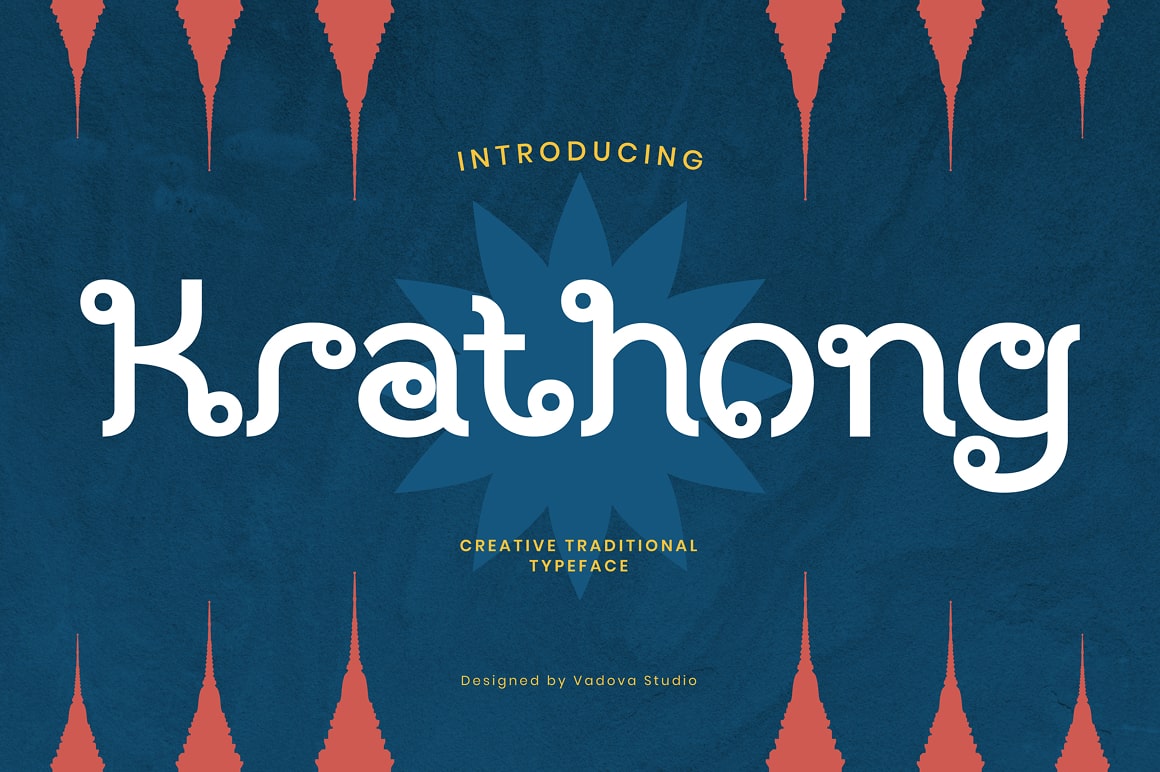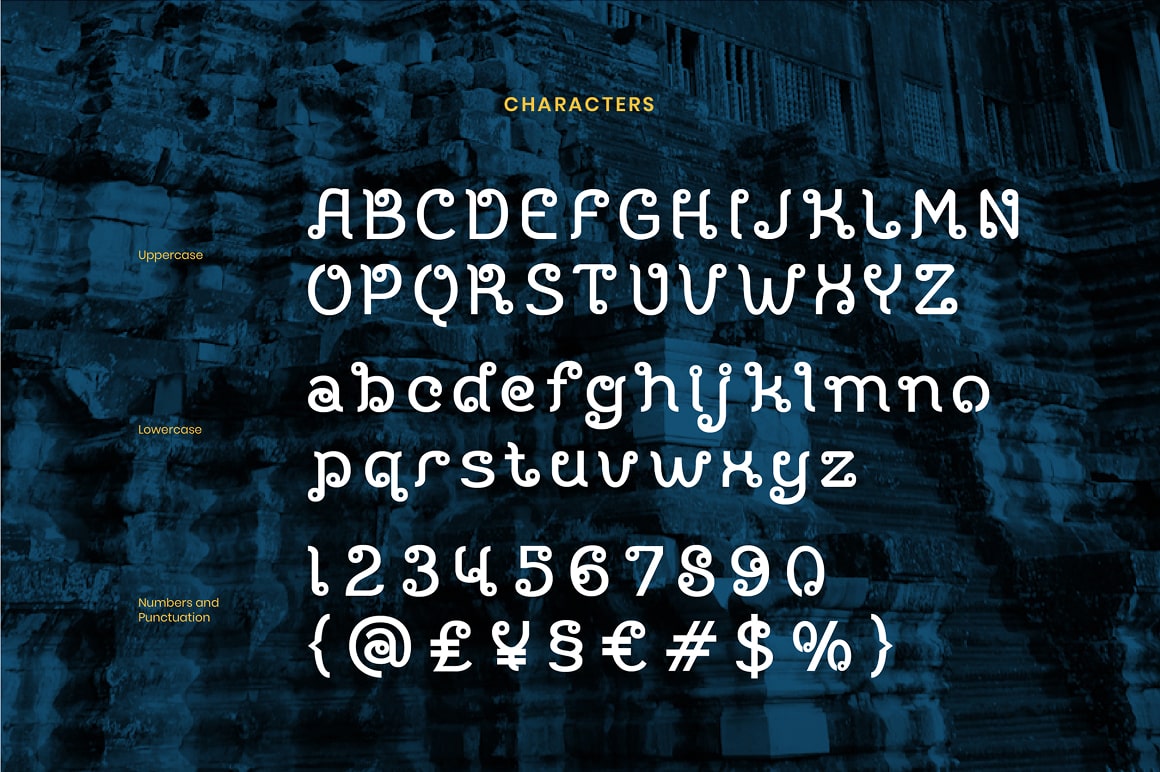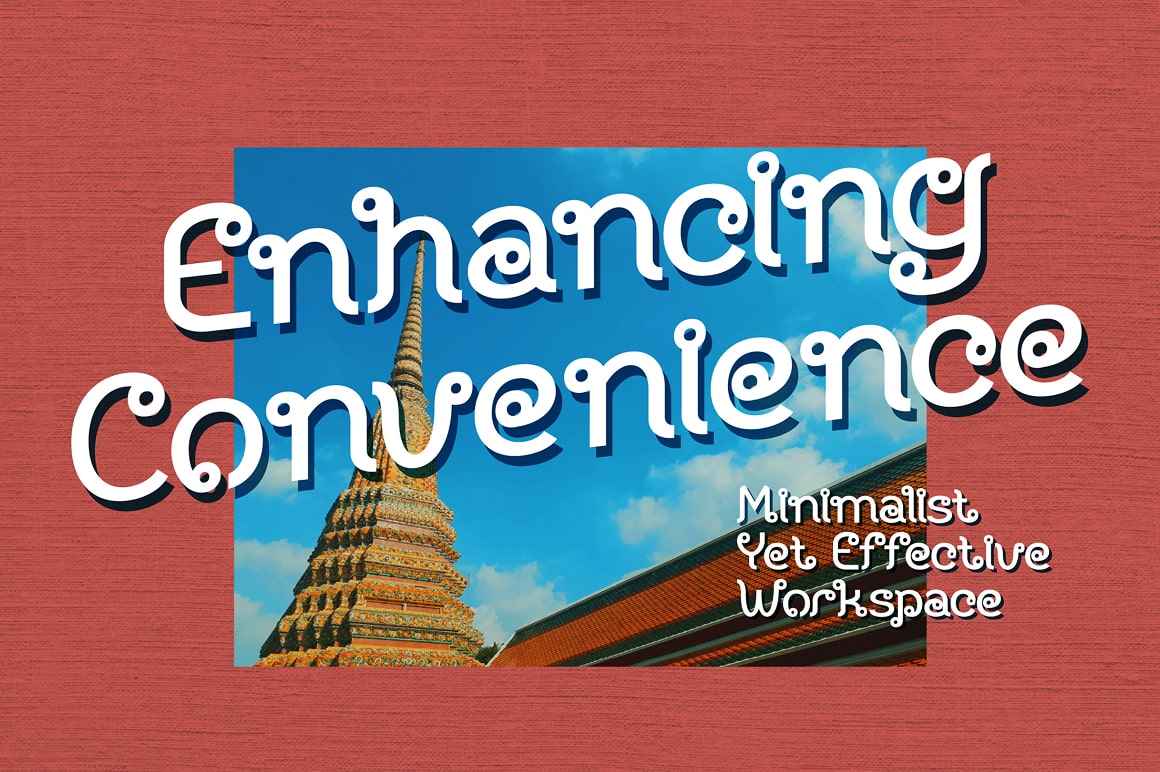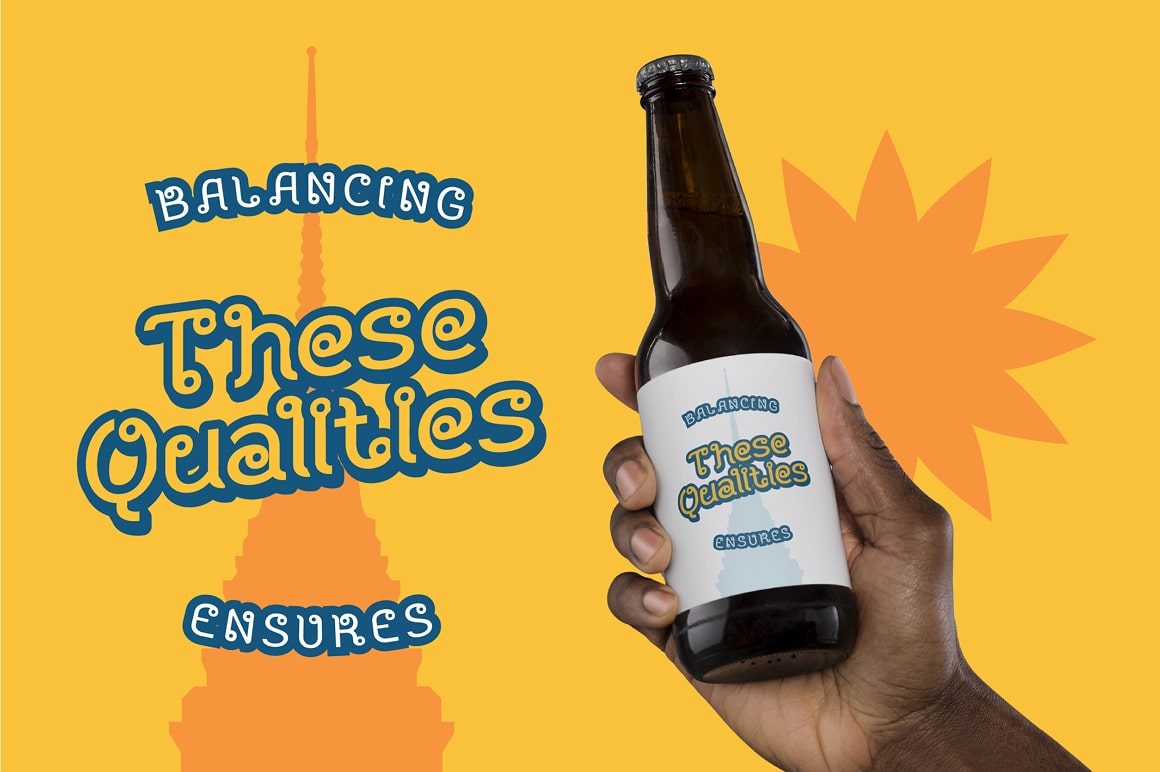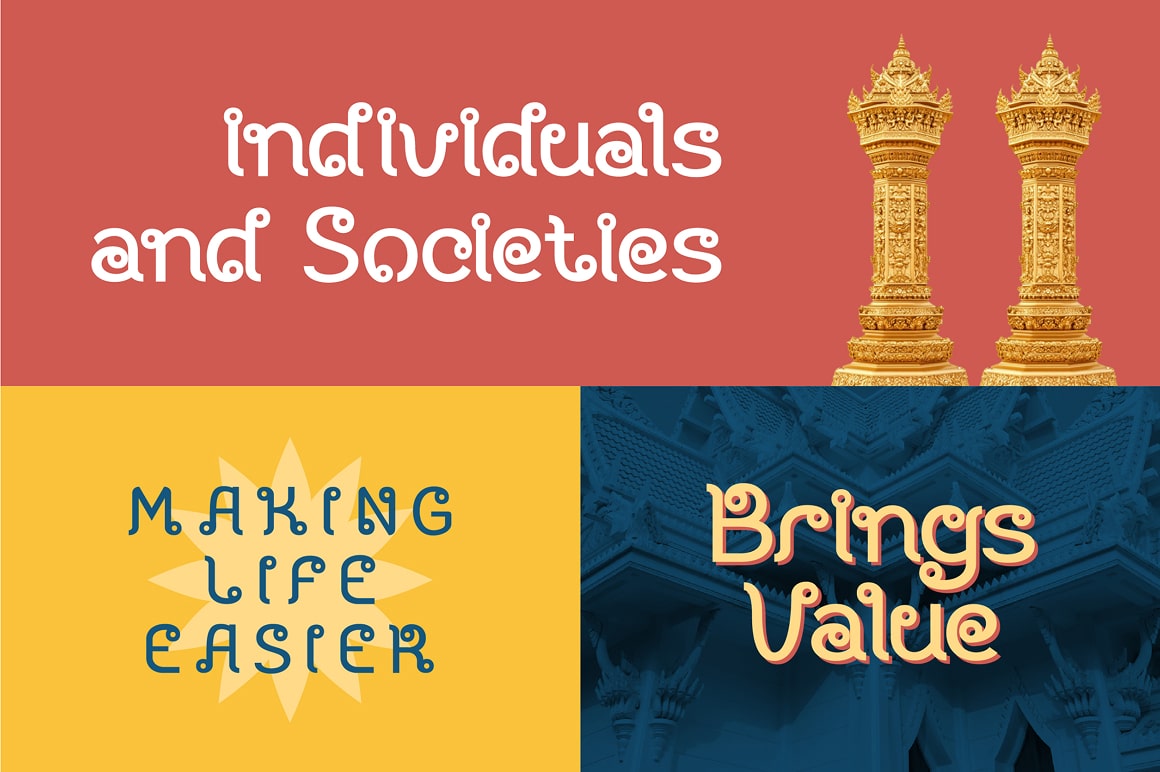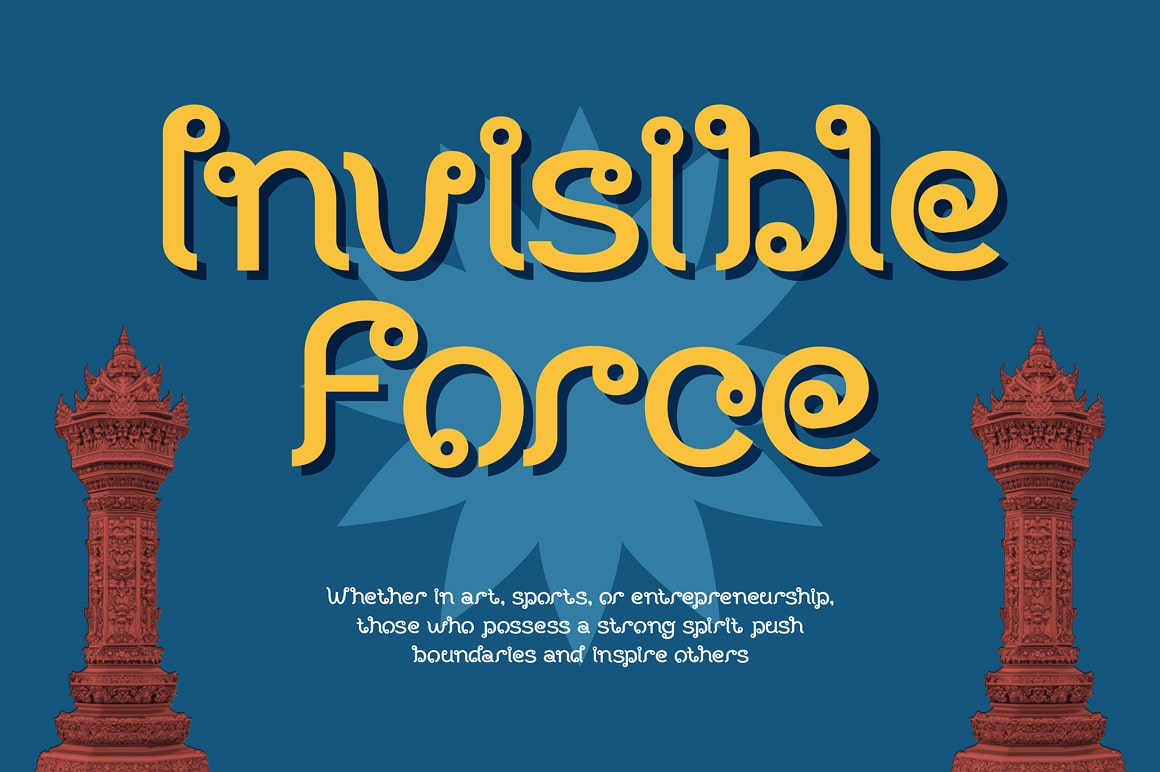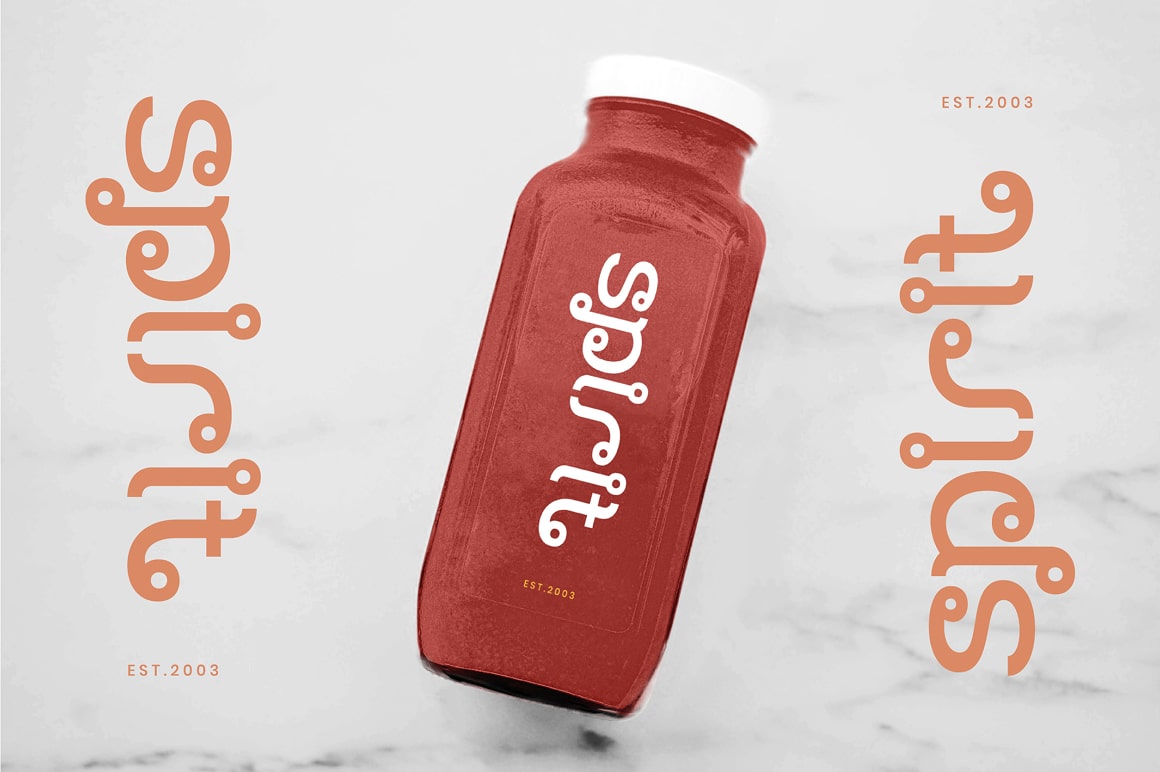
Krathong Creative Traditional Font
Elevate your designs with Krathong Creative Traditional Font, a creative traditional typeface inspired by Southeast Asian cultural motifs, decorative patterns, and festive lettering. Its unique curves, ornamental swirls, and elegant structure make it perfect for event posters, branding, packaging, and projects that embrace heritage and artistic expression. The font balances tradition with modernity, adding a touch of sophistication and charm to any design. With its intricate yet readable style, Krathong brings a sense of cultural richness and festive elegance to visual storytelling.